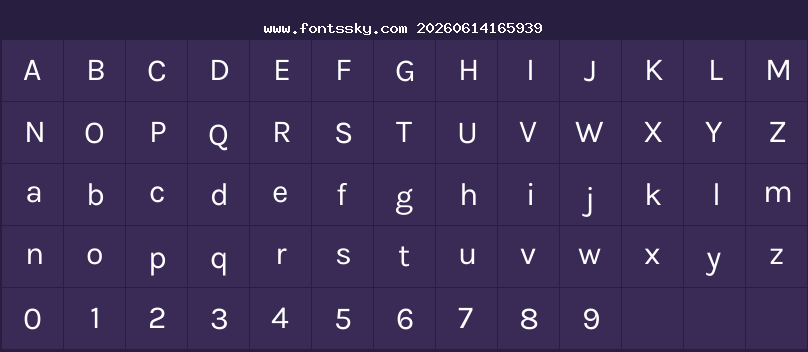
Karmilla Preview
• Font Name: Karmilla
• Full Font Name: Karmilla Regular
• Designer: Jonathan Pinhorn
About Karmilla.ttf
Karmilla.ttf is a modern, elegant sans-serif font designed for ultimate readability and visual harmony. Perfect for branding, headlines, web design, and print materials.